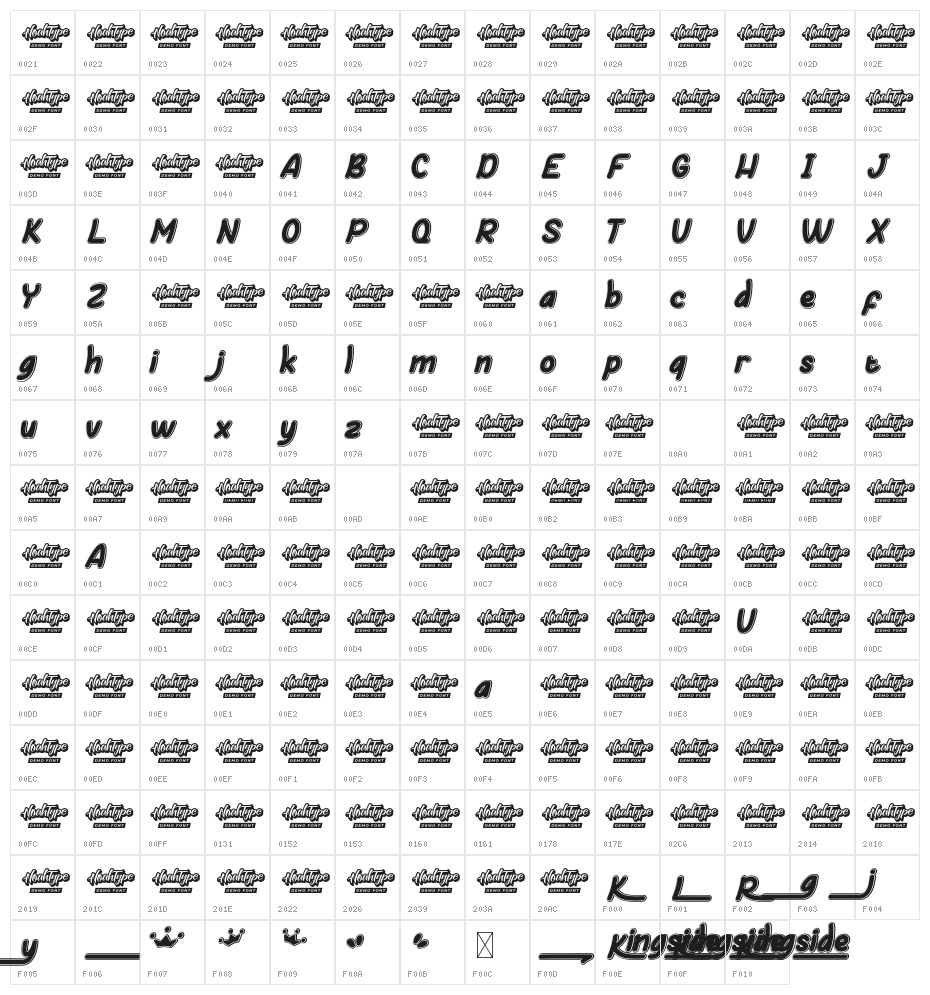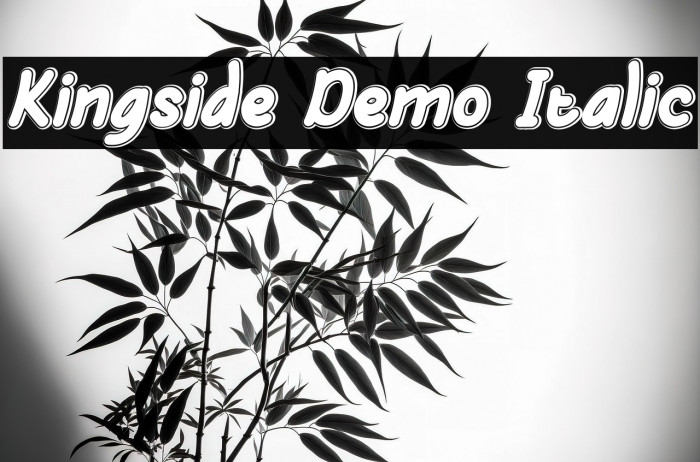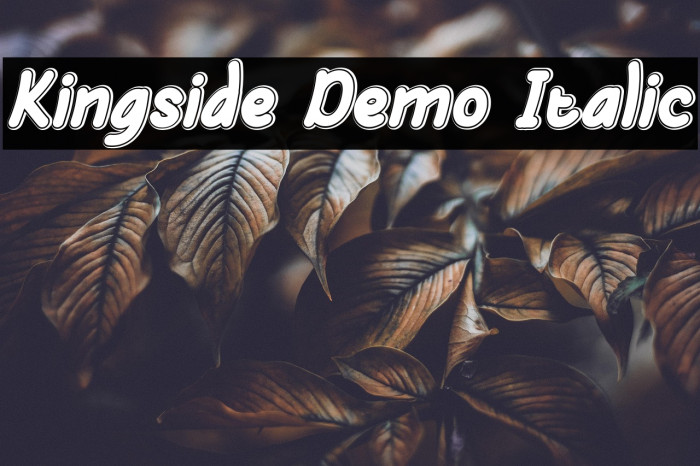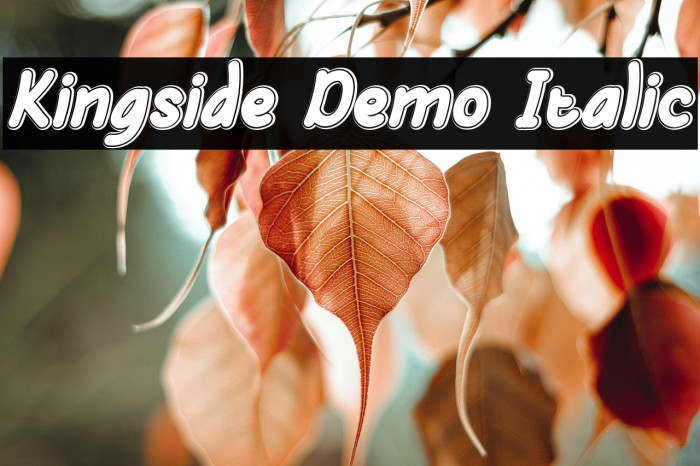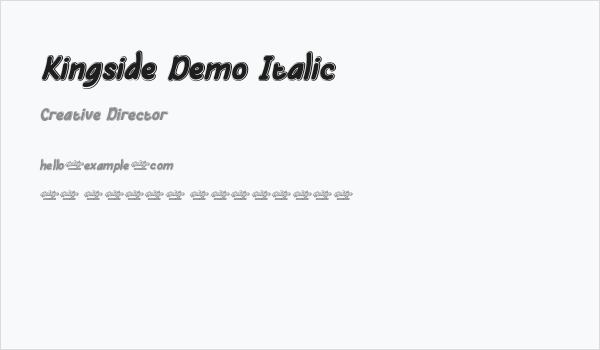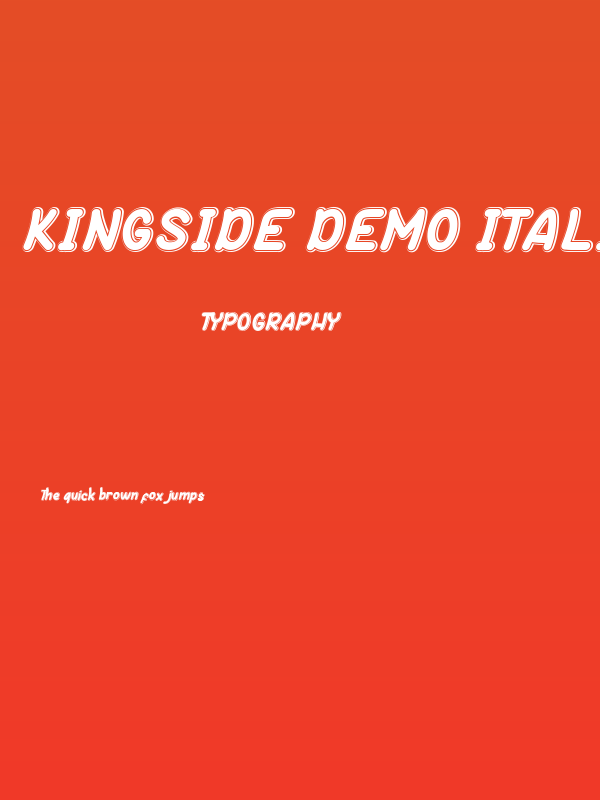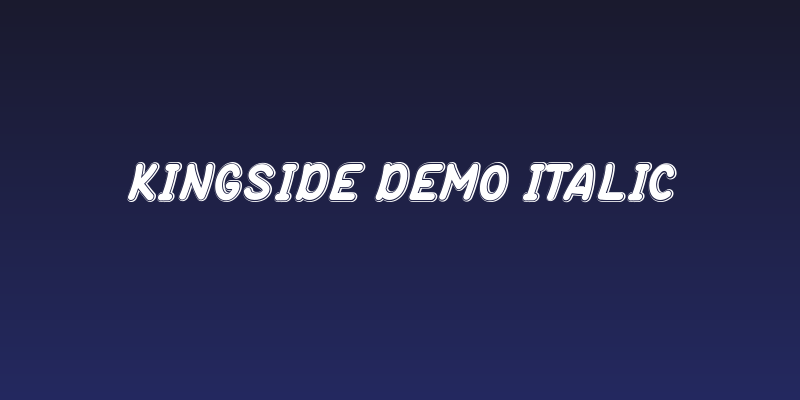
Kingside Demo Italic Font
Kingside Demo Italic Description
This font features a bold, playful style with a thick outline that gives it a distinctive, eye-catching appearance. The italic slant adds a dynamic and energetic feel, making it suitable for creative and informal designs. The characters are rounded and slightly condensed, providing a friendly and approachable look. The font maintains consistent stroke thickness, contributing to its bold and impactful presence. Its unique style is perfect for projects that require a fun and lively touch.
| Overall Style | Playful, Energetic |
| Proposed Projects | Ideal for children's book covers, playful branding, event posters, and social media graphics. |